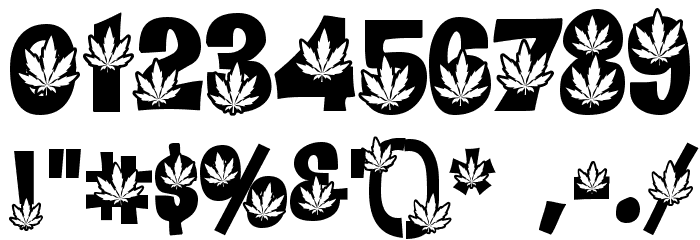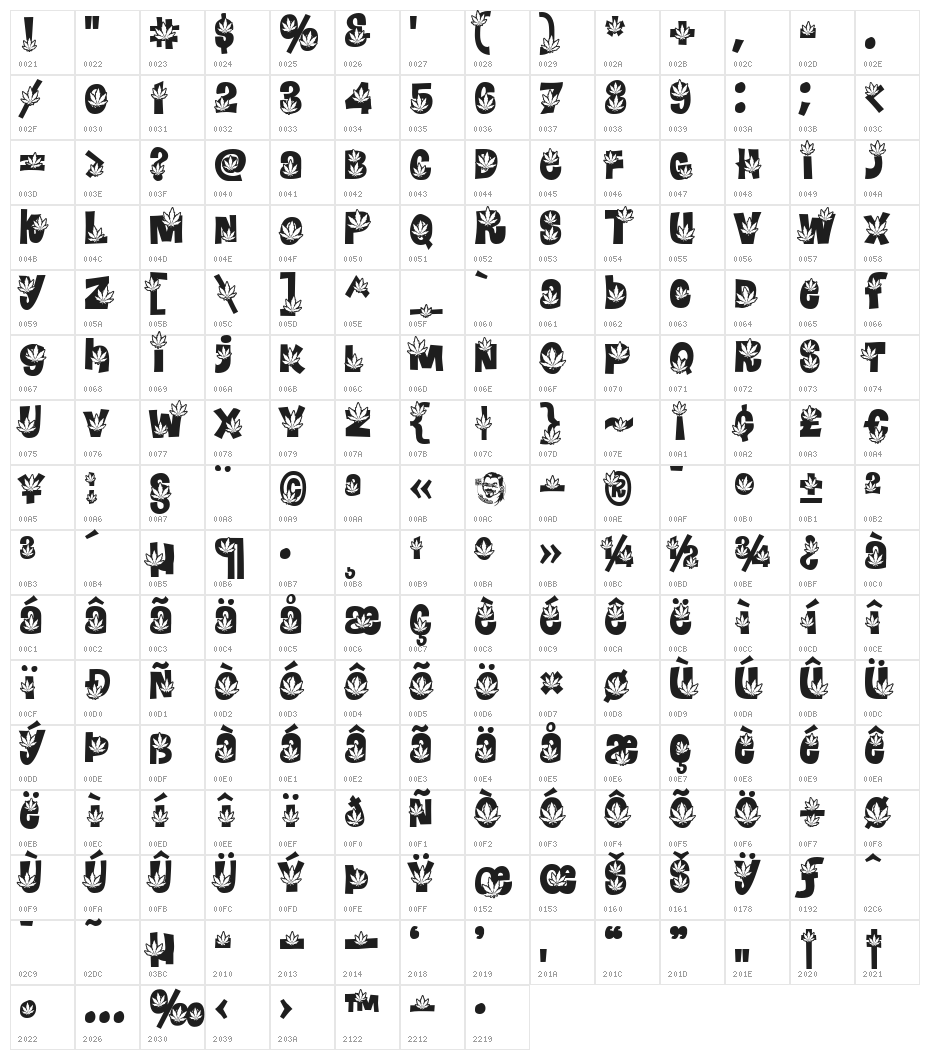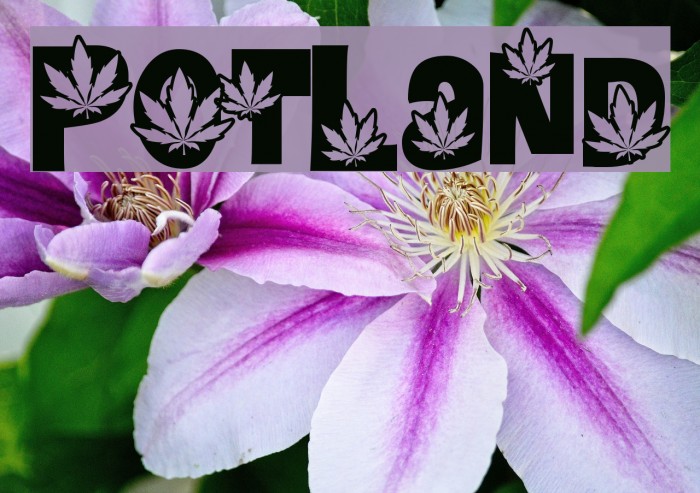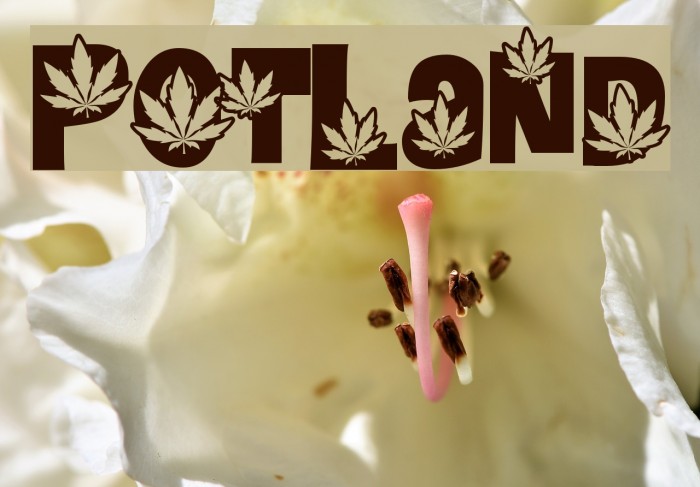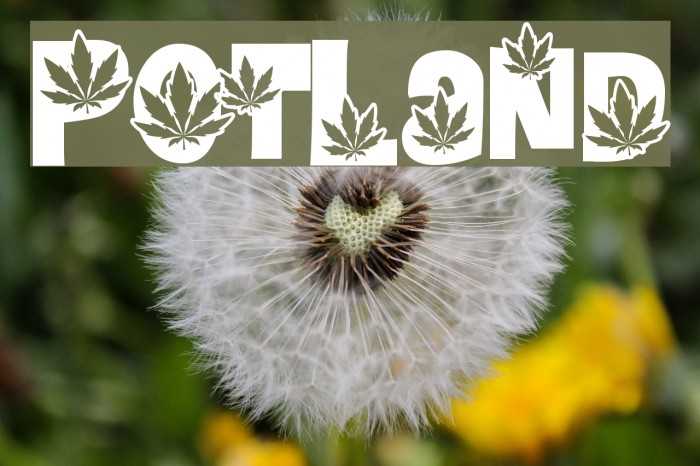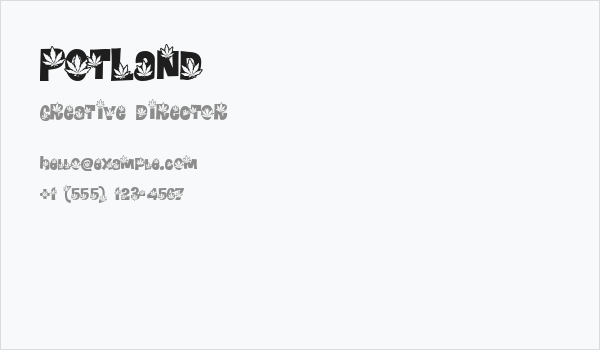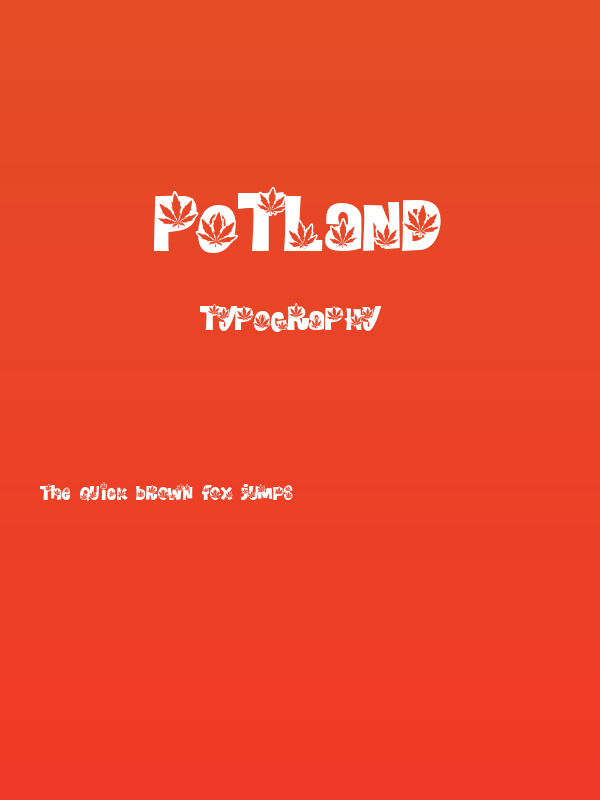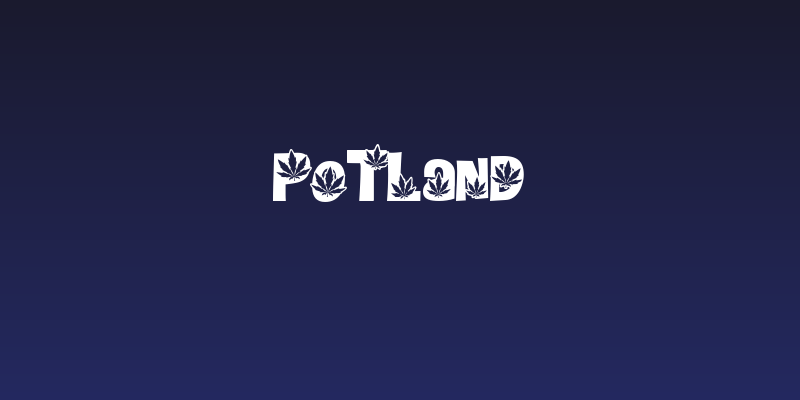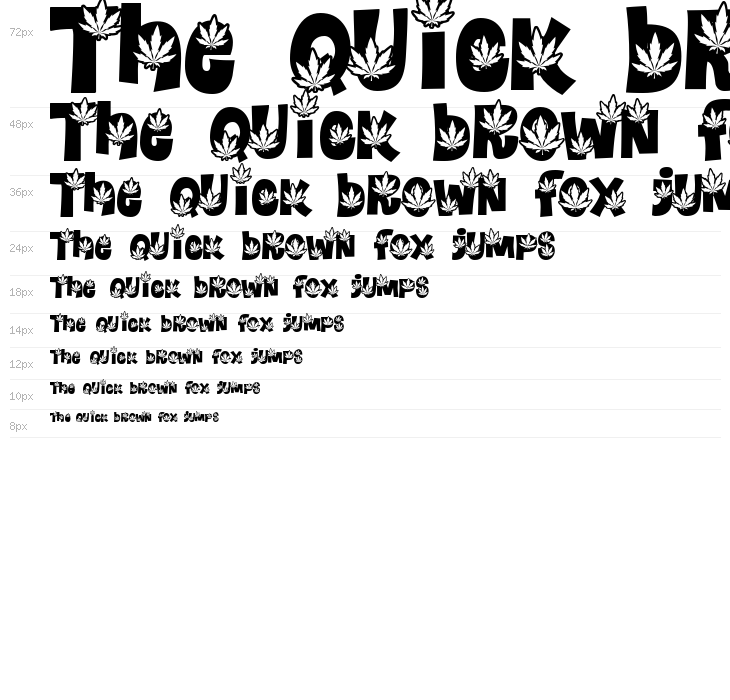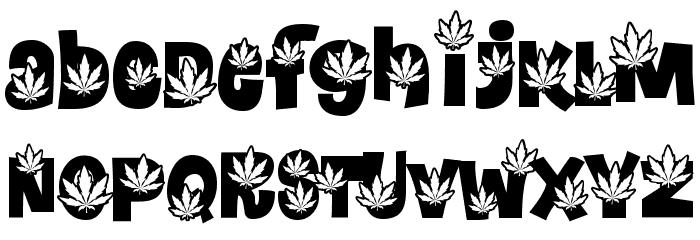
PotLand Font
PotLand Description
This playful and bold decorative font features a unique design where each character is adorned with a stylized leaf motif, adding a whimsical and nature-inspired touch. The letters are thick and robust, making them stand out with a strong visual impact. The font combines a modern aesthetic with a playful twist, ideal for capturing attention. The characters are well-defined, with a consistent style throughout, ensuring readability while maintaining its decorative appeal. This font is perfect for projects that require a fun and eye-catching design element, such as posters, event flyers, or themed branding materials.
| Proposed Projects | Ideal for event posters, themed branding, playful packaging, and creative social media graphics. |